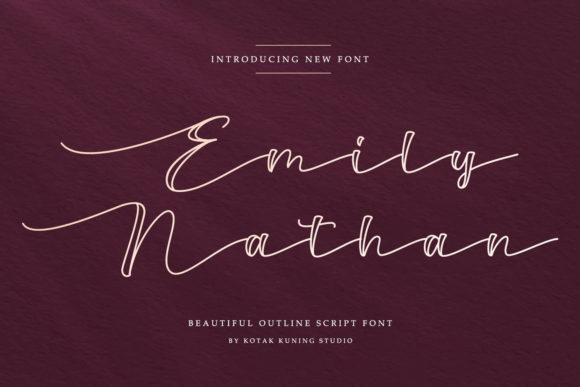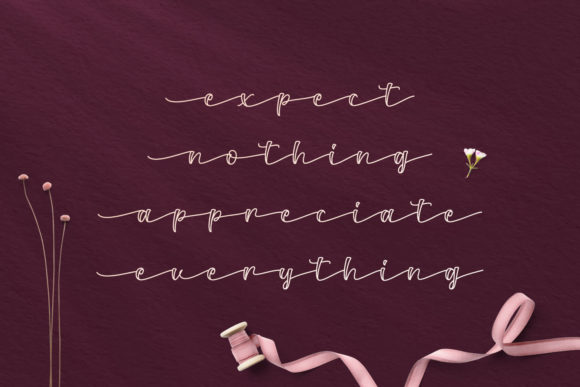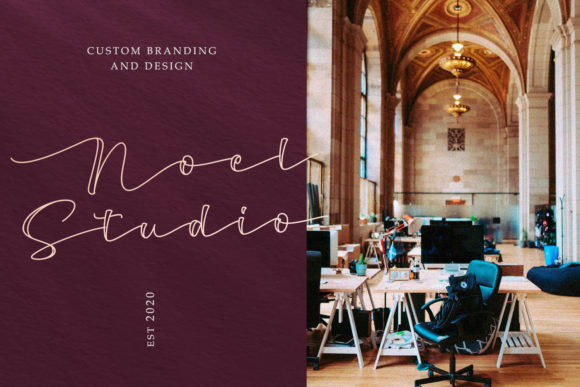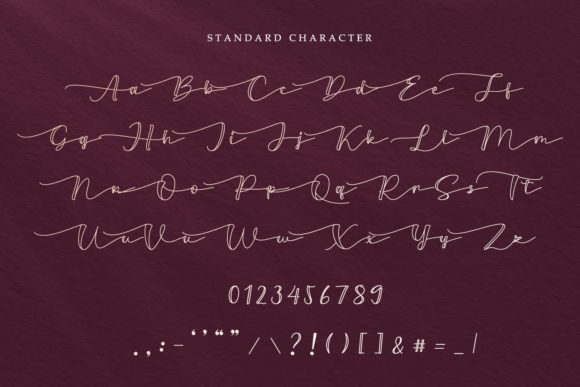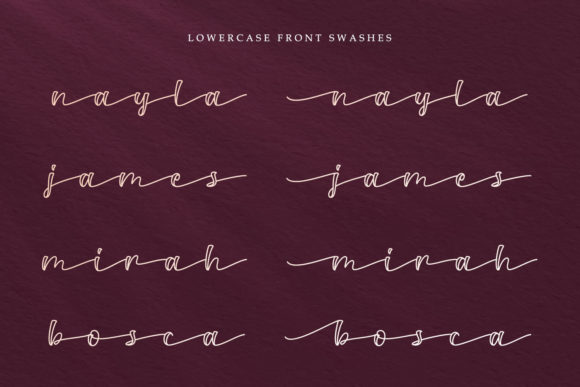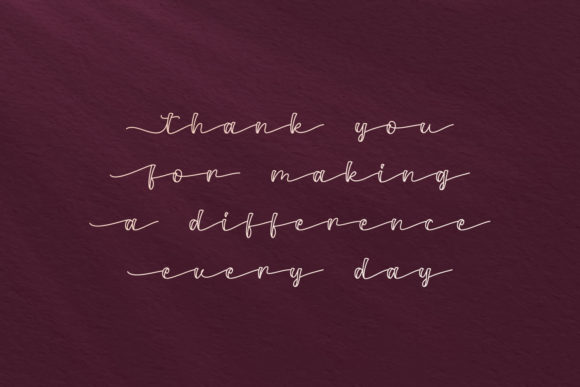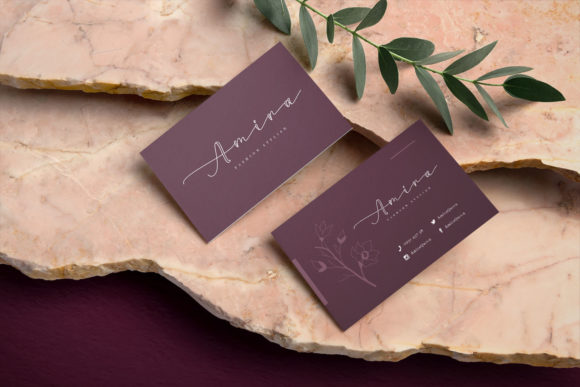
Script Fonts Emily Nathan Font 0 128 FacebookTwitterPinterestWhatsApp 1 of 7 Emily Nathan Font Poster 2... Emily Nathan Font Poster 3... Emily Nathan Font Poster 4... Emily Nathan Font Poster 5... Emily Nathan Font Poster 6... Emily Nathan Font Poster 7... About Emily Nathan Font Emily Nathan is a sweet and cursive script font, that will add a personal feel to your next design idea. Expertly designed to make your creation look out of this world, this font will look gorgeous on a variety of ideas. DOWNLOAD NOW